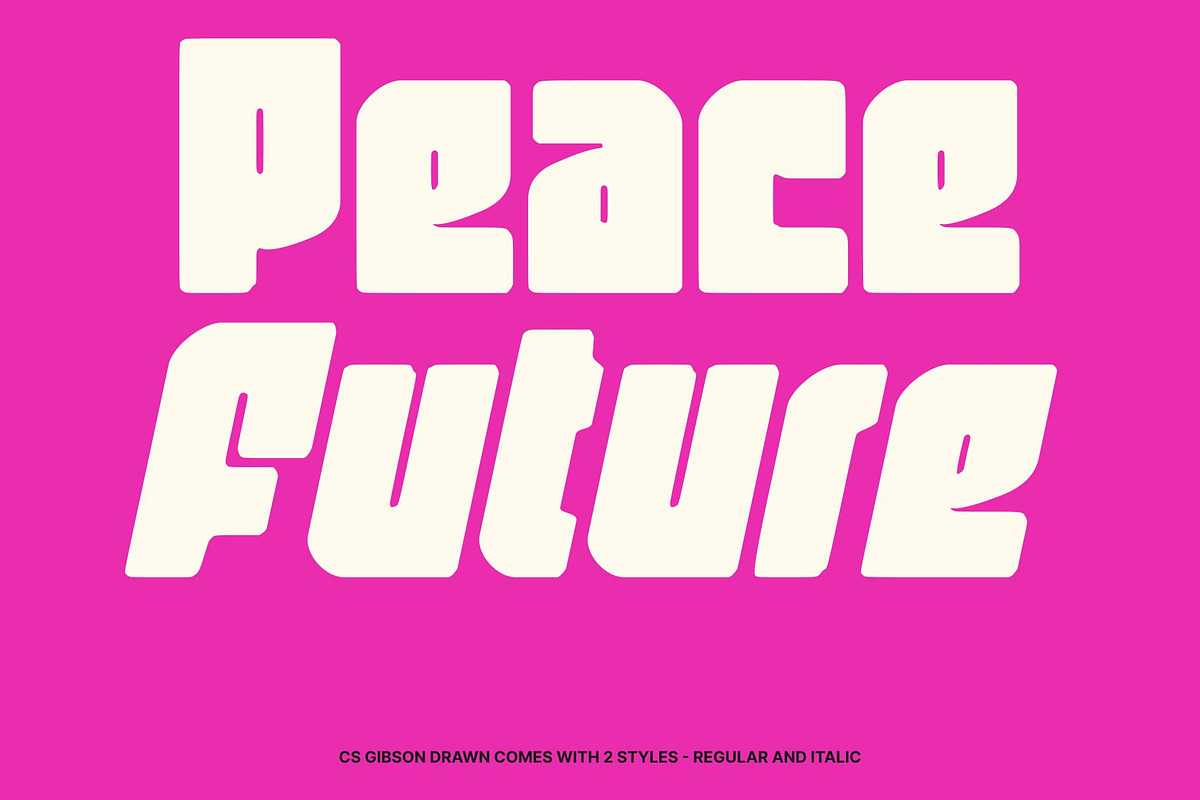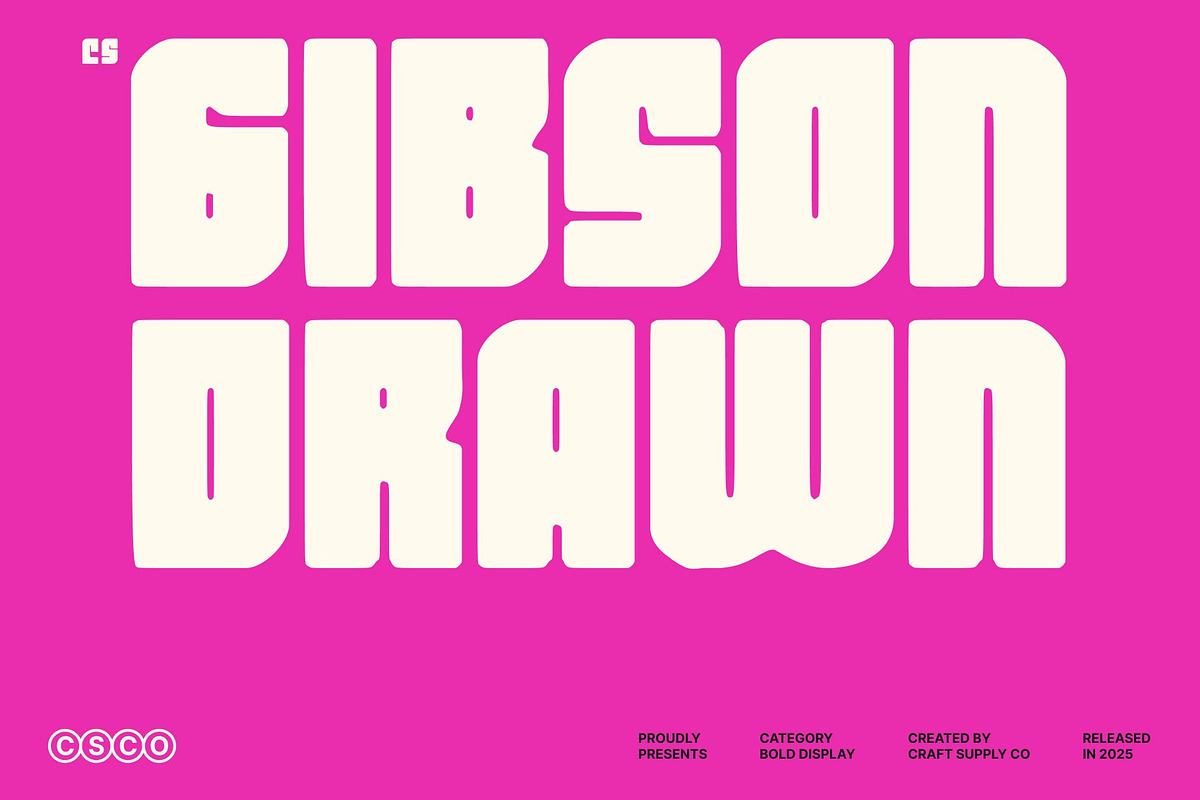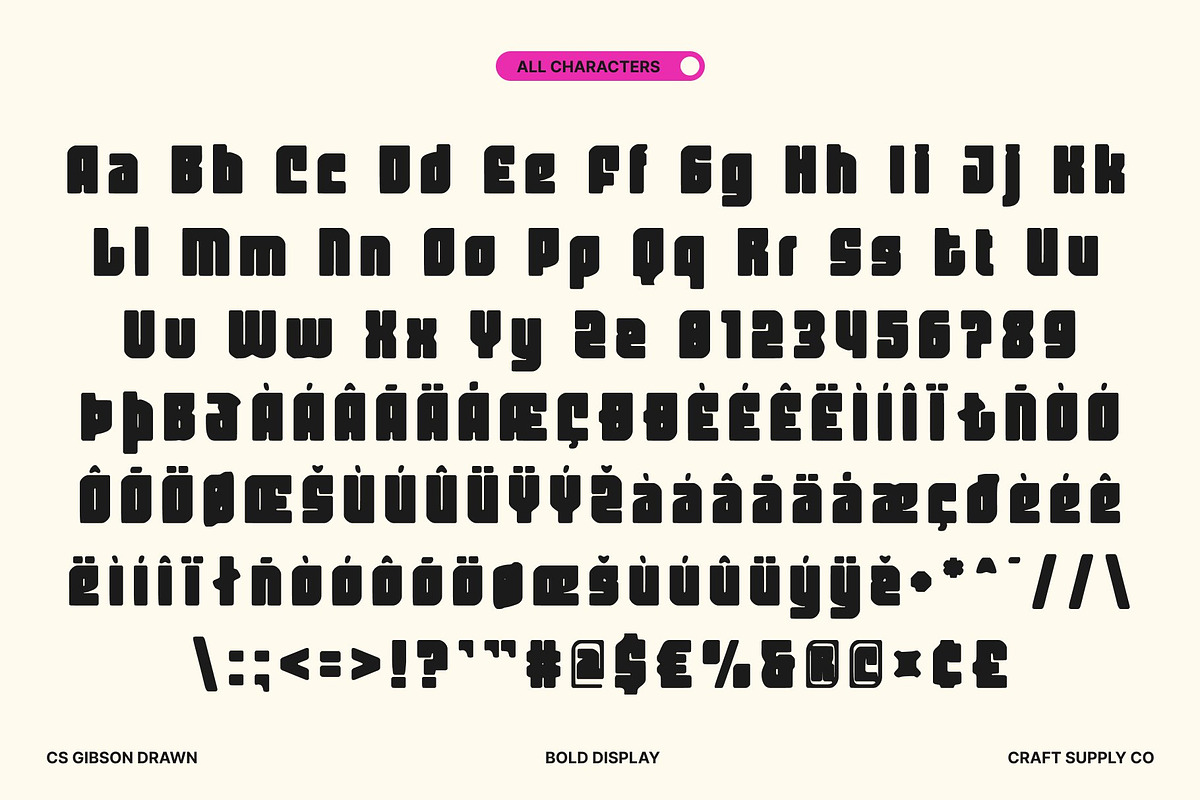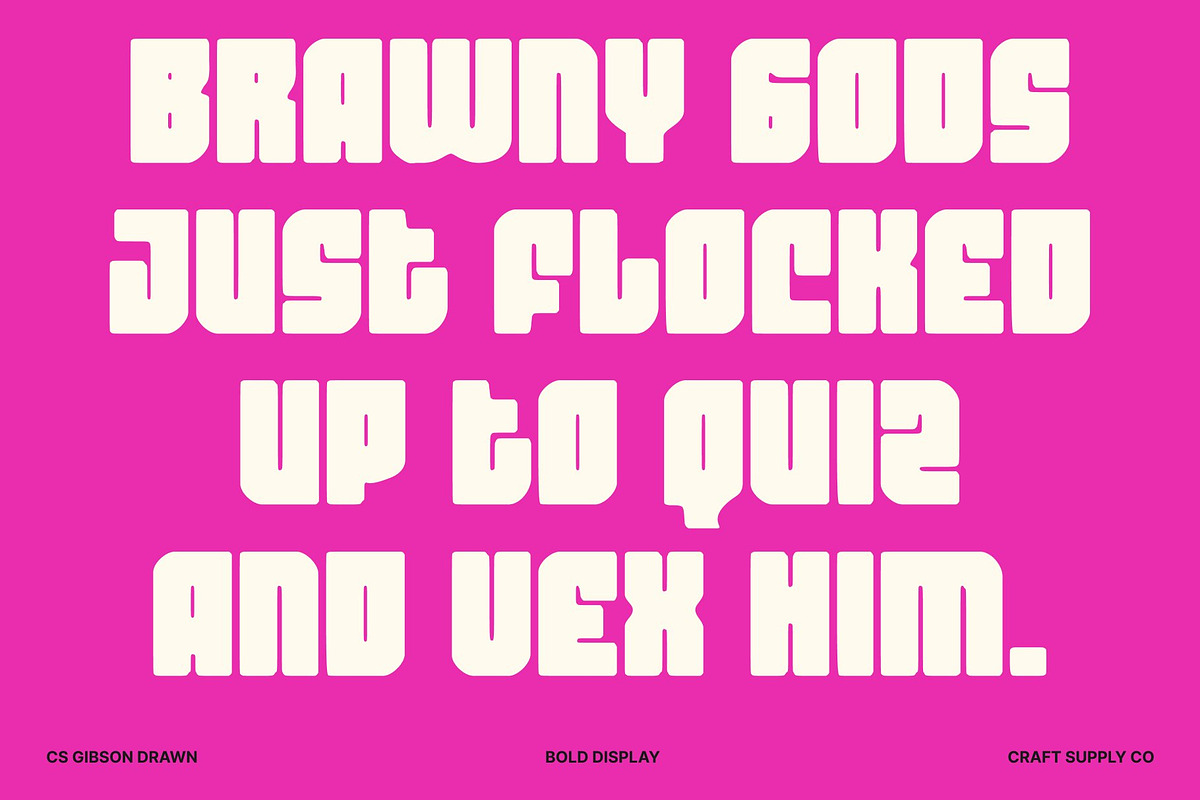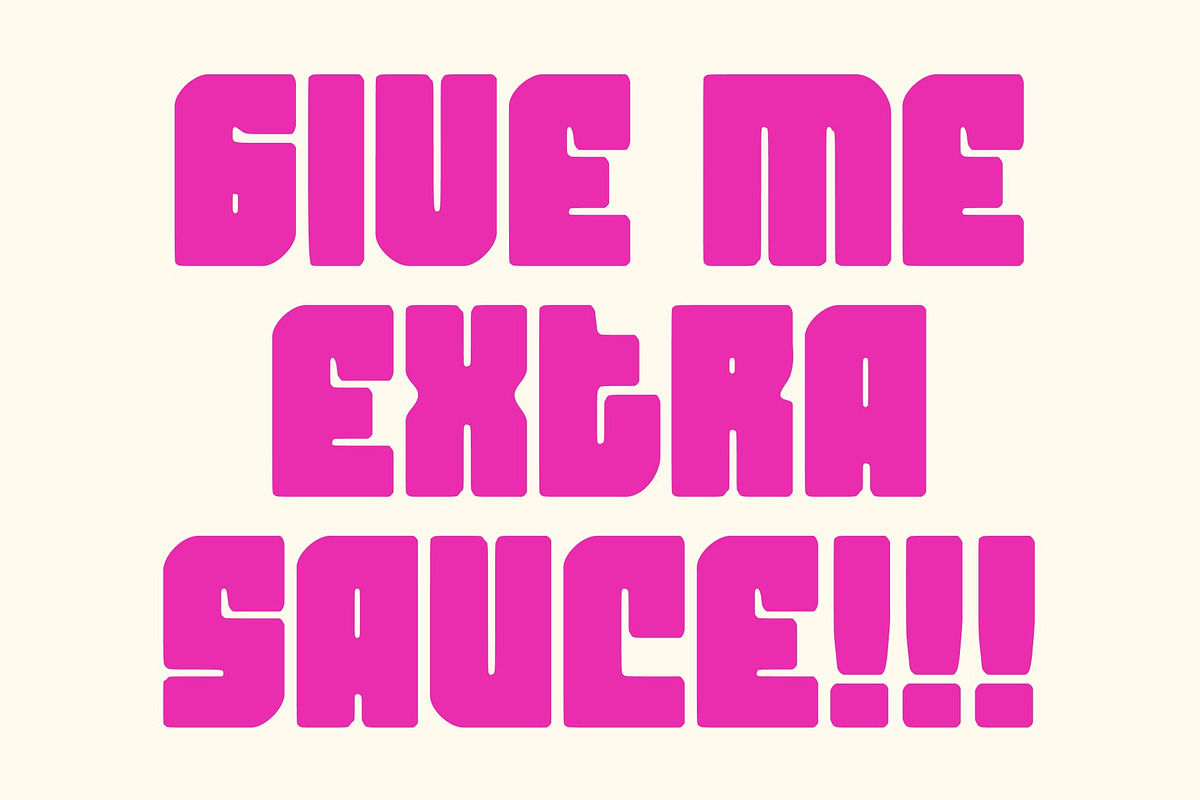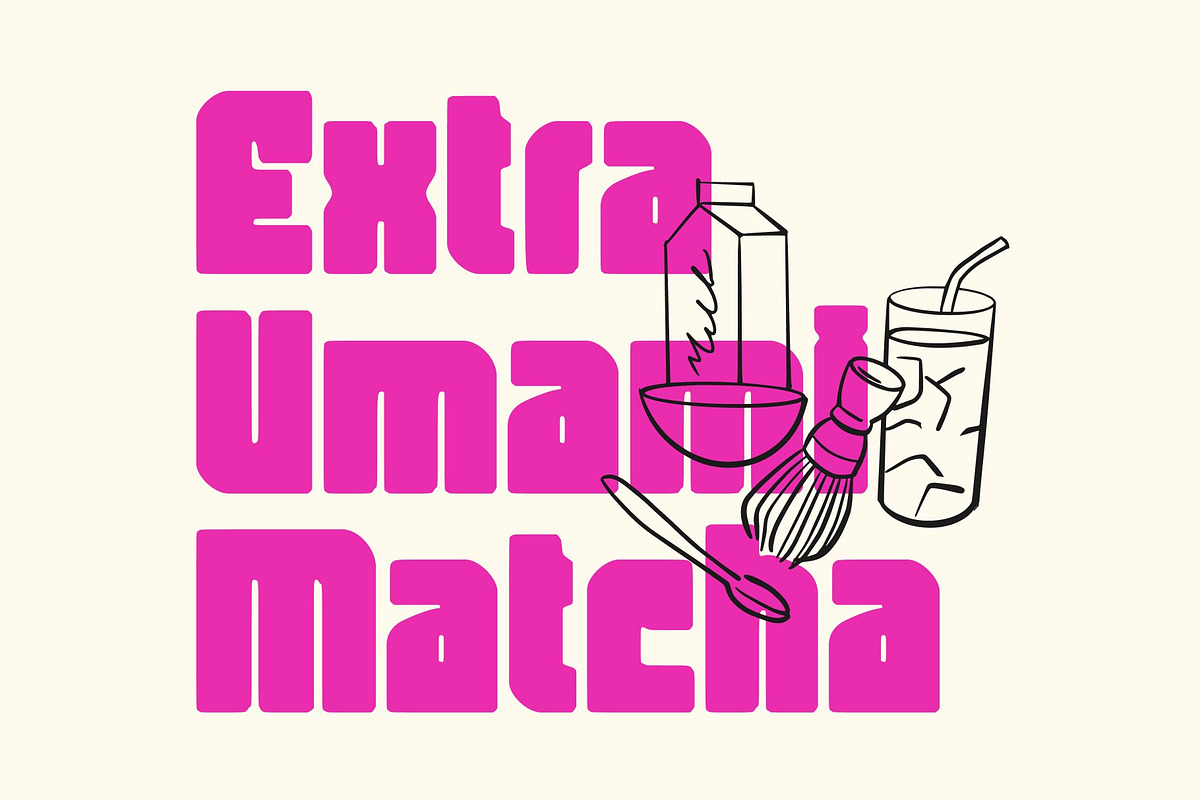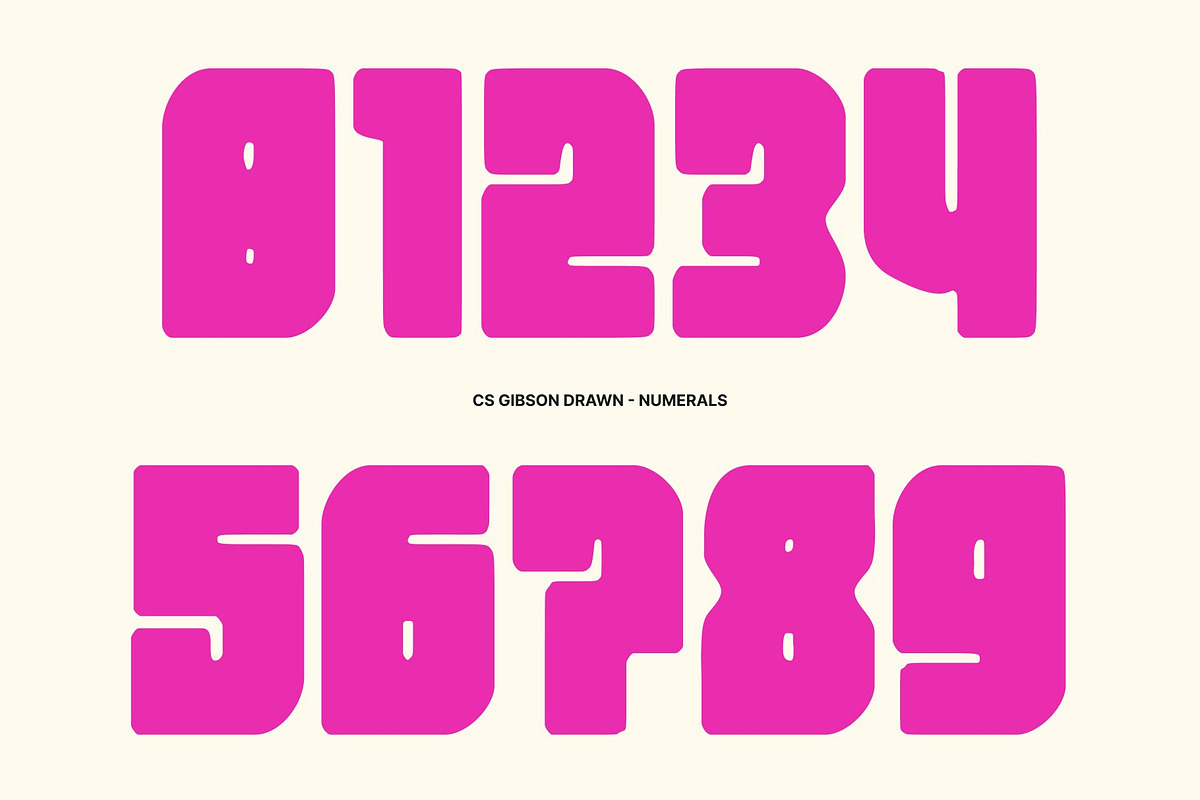
CS Gibson Drawn
CS Gibson Drawn – Bold Font: Powerfully Modern with Hand-Drawn Character
Bold Form for Maximum Visual Impact This is a modern display sans serif font designed to make a strong, immediate impression. Its bold, commanding letterforms grab attention while the added hand-drawn texture injects personality and energy, giving each character a slightly organic, crafted feel. Ideal for high-impact headlines, branding, posters, and digital content, this font ensures your designs stand out with authority and style.
Clean and Contemporary Aesthetic With precise, clean lines and balanced proportions, offers a contemporary sans serif aesthetic enhanced by artistic hand-drawn nuances. The subtle irregularities in the texture add warmth and approachability, softening the bold geometry while maintaining a professional, modern appearance. It’s perfect for designers seeking a confident font that combines structure with creativity.
Assertive Presence for Confident Messaging The bold, robust letterforms of communicate power, stability, and clarity. Each character conveys confidence and attention-commanding energy, making it ideal for logos, editorial layouts, posters, and packaging. The drawn effect further enhances expressiveness, giving your typography a unique visual identity that feels handcrafted yet authoritative.
Versatile for Bold Branding and Design This font excels across multiple creative contexts, from corporate branding to lifestyle campaigns and promotional graphics. Its fusion of bold modern design with artistic hand-drawn details ensures a versatile, impactful, and memorable typographic voice that captivates audiences and leaves a lasting impression.